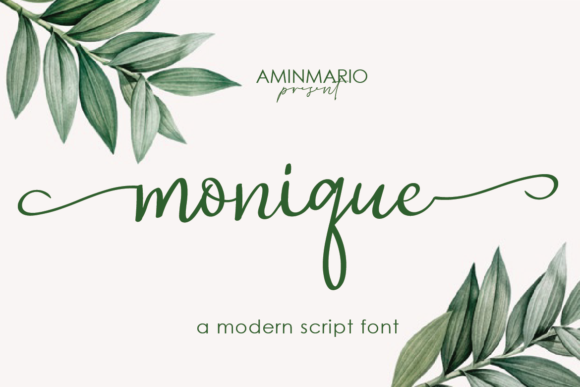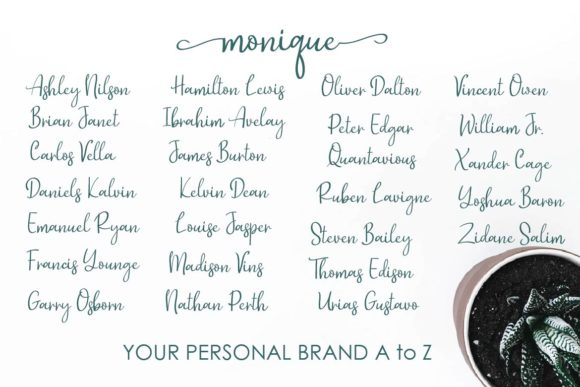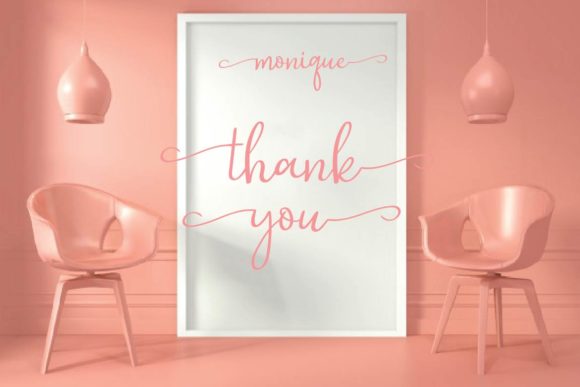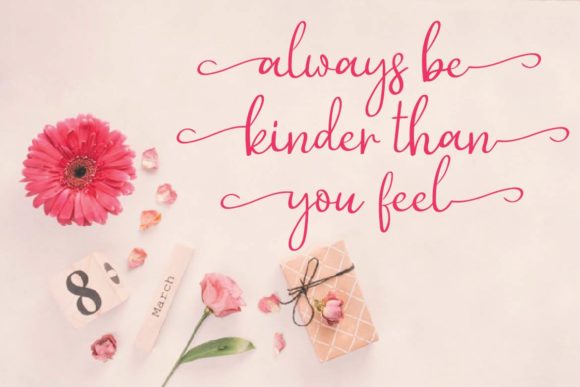
Monique Font
About Monique Font
Monique is a modern script font. It features an incredibly classic style, while still keeping a friendly feel. Monique is the perfect font for making original and outstanding designs. Fall in love with its authentic feel and use it to create gorgeous wedding invitations, beautiful stationary art, eye-catching social media posts, and cute greeting cards.